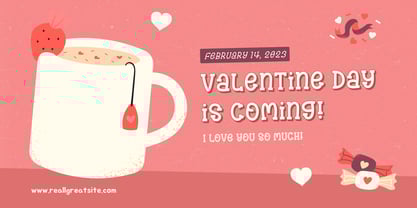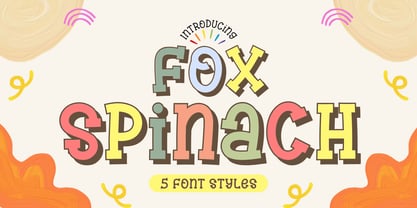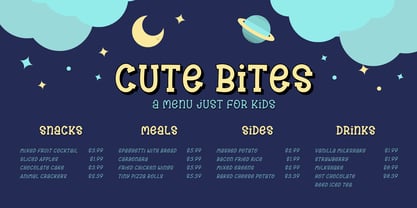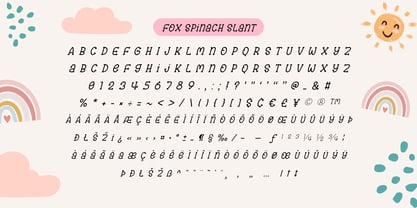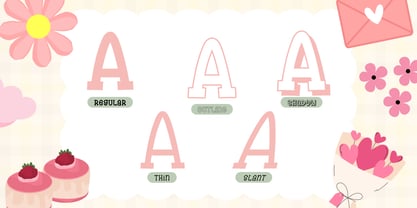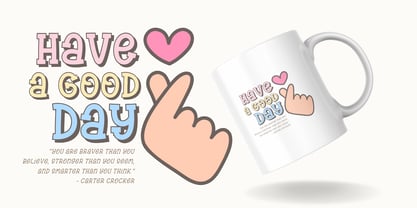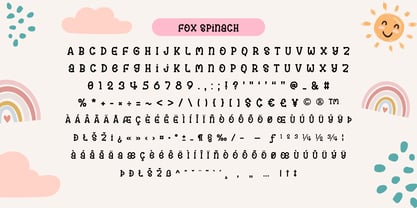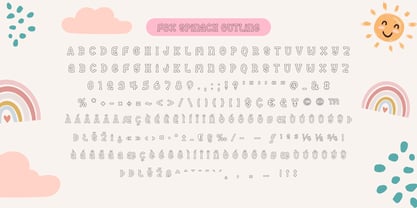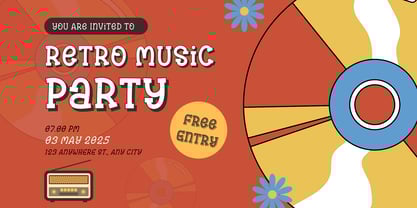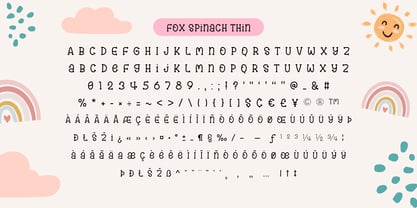
Fox Spinach
The Fox Spinach Font Family was designed by Rattana Rattanawan and published by Fox7. Fox Spinach contains 5 styles and family package options. More about this family
Fox Spinach is a 5 font style that cool cute and playful display font that adds a captivating and energetic touch to your designs. Perfect for use in publications, menus, logos, business cards, or even printed on t-shirts, these fonts exude uniqueness. Its main feature is its vibrant and expressive design, allowing you to create attention-grabbing headlines, t-shirt typography, banners, product labels, and more